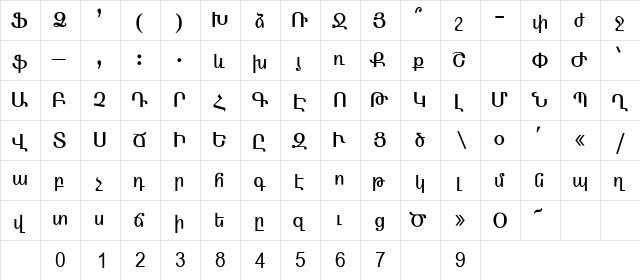
ARMEN_ TT Normal
Design Context for ARMEN_ TT Typeface
ARMEN_ TT is a composed and adaptable typeface that performs quietly and consistently across a wide range of design contexts.